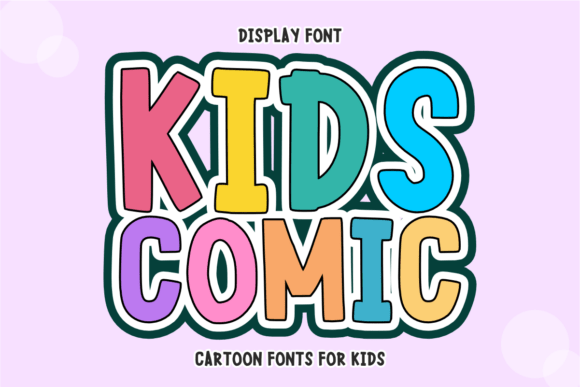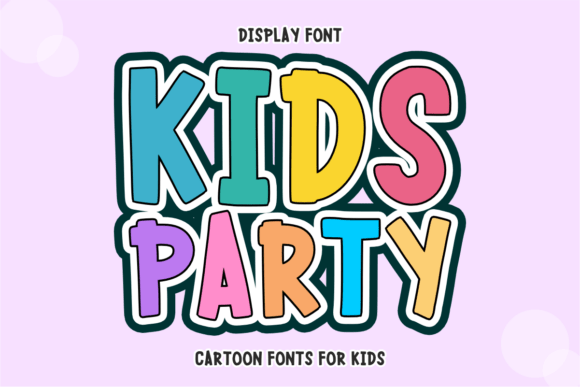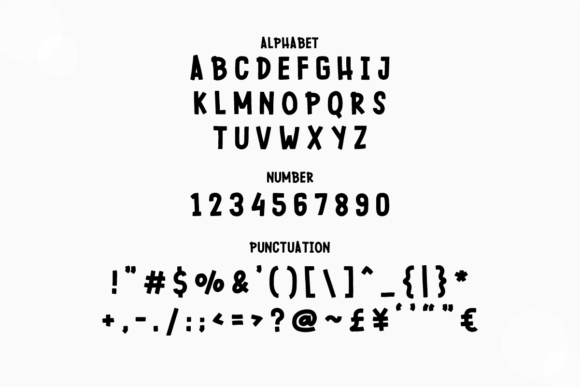
Introduction to Hello Bold Font
Have you ever been stuck on a creative project, trying to find the perfect font to bring your vision to life? You know, that one font that just makes everything pop and puts a smile on your face? Well, we’ve got the solution for you! Introducing the Hello Bold Font, a playful and cheerful display font designed to add a touch of joy to every project.
As a designer, you know how important it is to have high-quality design resources at your fingertips. The Hello Bold Font is exactly that – a valuable addition to your design arsenal. With its bold personality and high legibility, this font is perfect for crafting eye-catching posters, designing vibrant birthday invitations, or creating trendy kids’ apparel. And the best part? It’s incredibly easy to work with, thanks to its transparent background and easy cutting capabilities, making it a dream for both crafters and professional designers.
Key Features of Hello Bold Font
- High-quality design resource ideal for creative projects, offering a unique and modern look.
- Features a transparent background, allowing for seamless integration with any design element.
- Unique bold font style with a sleek and modern aesthetic, perfect for making a statement in creative projects.
- Supports multiple languages, making it a versatile design resource for global creative projects.
Honest Review: Hello Bold Font
As a designer, I’m always on the lookout for high-quality design resources to elevate my creative projects. Recently, I had the chance to work with the Hello Bold Font, and I’m excited to share my honest review with you.
- ✨ Unique and modern design aesthetic that adds a touch of sophistication to any project
- ✨ Clear and legible font, even at smaller sizes
- ⚠️ Limited character set, which may not be suitable for projects that require a wide range of characters
- ⚠️ Not ideal for small text sizes, as the font can become pixelated
Overall, I’m impressed with the Hello Bold Font, and I think it’s a great addition to any designer’s toolkit. While it may have some limitations, its unique design and high-quality execution make it a valuable resource for creative projects. Whether you’re working on a branding project or a web design, the Hello Bold Font is definitely worth considering.
Hello Bold Font
Tips for Getting the Most Out of Hello Bold Font
Experiment with different font sizes, colors, and combinations to achieve a unique look. Use the transparent background feature to create visually appealing text overlays.
Common Use Cases for Hello Bold Font
Hello Bold Font is ideal for designing logos, social media graphics, and promotional materials. Its high-quality design makes it perfect for branding and marketing projects.